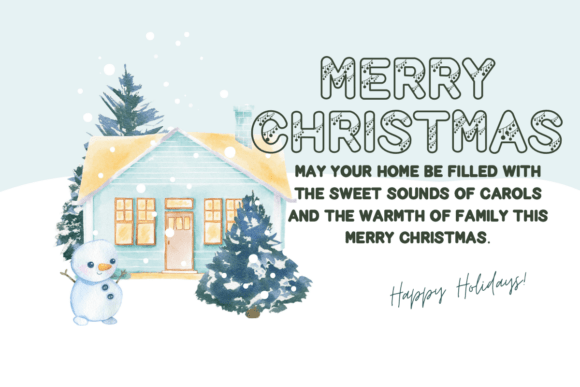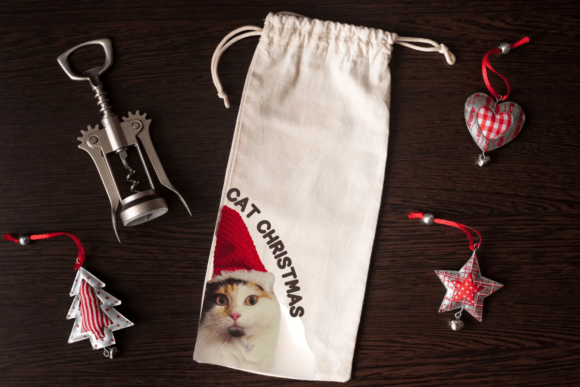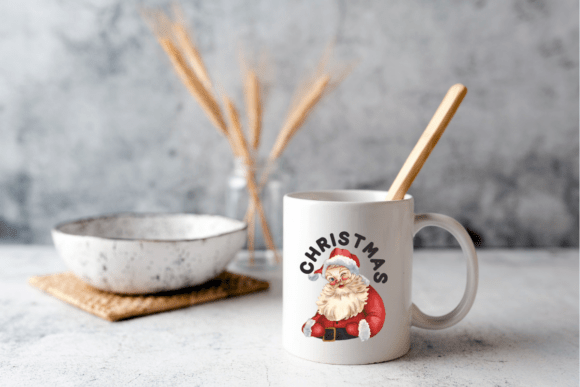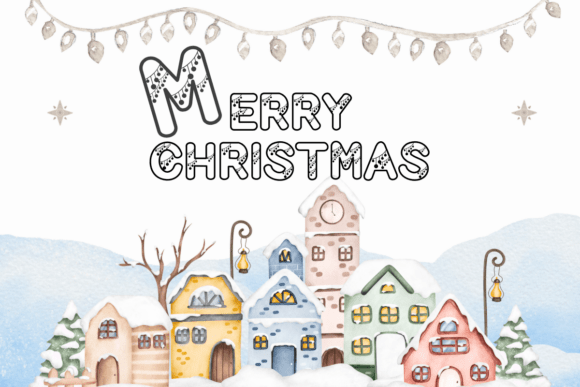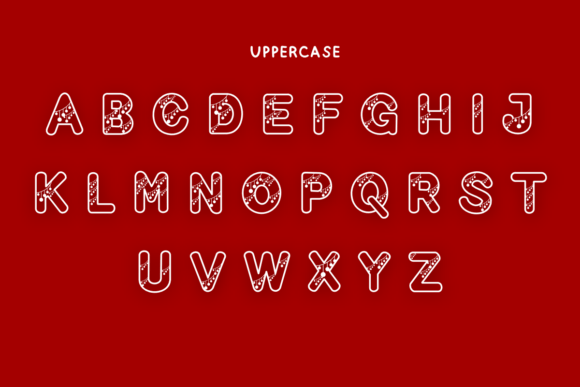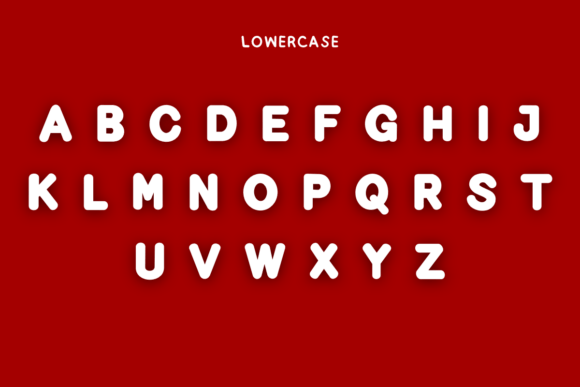
Igniting Your Creativity with Merry Lights Font
Have you ever sat down to start a new project, only to find that the right font is the missing piece of the puzzle? That moment of creative frustration is a familiar feeling for many designers. But what if you could unlock a font that not only elevates your designs but also sparks joy and warmth? Enter Merry Lights Font, a beautifully crafted typeface that’s perfect for a wide range of creative projects.
As a valuable resource for designers, Merry Lights Font offers a high-quality design solution that’s free to download and versatile enough to be used on any project. With a transparent background and charming aesthetic, it’s the perfect addition to your design toolkit. Whether you’re working on a heartfelt greeting card or a social media post, this enchanting font is sure to add a delightful edge to your work.
So, why settle for a plain font when you can add a touch of magic to your designs with Merry Lights Font? In this article, we’ll explore the endless possibilities of this captivating font and show you how to get the most out of it.
Key Features of Merry Lights Font
- High-quality design for a festive atmosphere: Perfect for creative projects that require a touch of holiday cheer.
- Transparent background: Ideal for designers who want to add the font to any background without worrying about unwanted colors.
- Resolution: Optimized for high-resolution displays, ensuring crisp and clear text at any size.
- Unique characteristics: The Merry Lights Font features a unique blend of modern and vintage elements, creating a one-of-a-kind design experience.
- Size: Includes a wide range of sizes and styles to suit various design needs, from small titles to large headlines.
Honest Review: Merry Lights Font
I recently stumbled upon the Merry Lights Font and was excited to give it a try. As a designer, I’m always on the lookout for high-quality design resources that can elevate my creative projects. In this review, I’ll share my honest thoughts on what works well and what could be improved.
- ✨ The font is incredibly festive and perfect for holiday-themed projects or any creative project that needs a pop of color.
- ✨ The transparent background allows for seamless integration with any design element, giving me more flexibility in my creative process.
- ⚠️ The font is limited to a single style, which might not be ideal for projects that require multiple font variations.
- ⚠️ The font’s boldness can sometimes be overwhelming, making it challenging to use in more subtle designs.
Overall, I’m impressed with the Merry Lights Font’s potential, but I think it could benefit from additional styles or a more nuanced approach to boldness. With a little tweaking, this font could be a game-changer for designers looking for a festive and high-quality design resource.
Experiment with different font sizes, colors, and styles to create a unique look. Use the Merry Lights Font in combination with other design elements, such as images or graphics, to add depth and interest to your design. Consider using the font for titles, headings, or body text to create a consistent design theme.
The Merry Lights Font is ideal for a variety of design projects, including: holiday cards, invitations, and party decorations; wedding invitations and decorations; and any other creative project that requires a touch of elegance and sophistication.
The Merry Lights Font is designed for high-quality print and digital applications. It’s perfect for use in logos, branding materials, and other creative projects where a high level of design sophistication is required. The font’s elegant and modern design makes it an excellent choice for designers who want to create a professional and polished look.